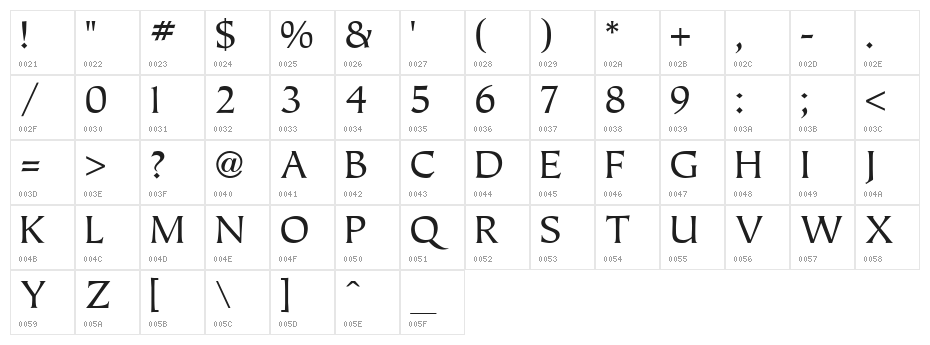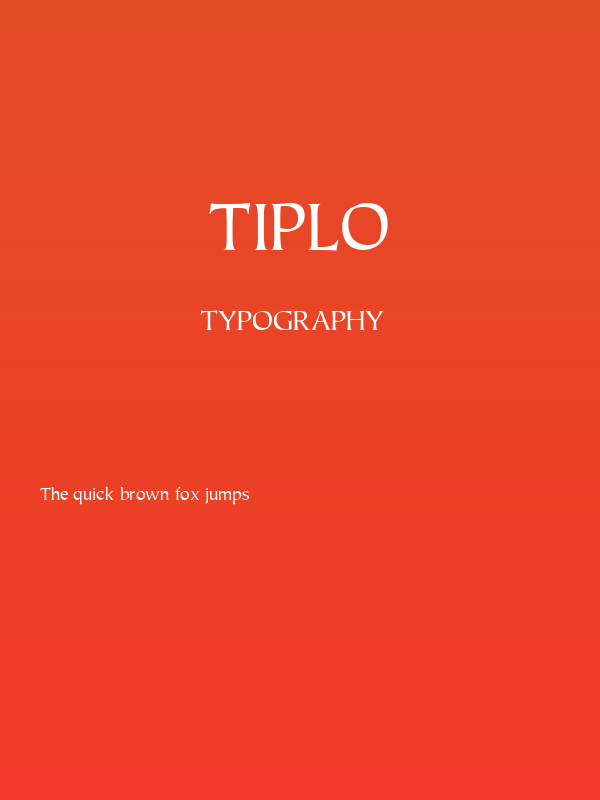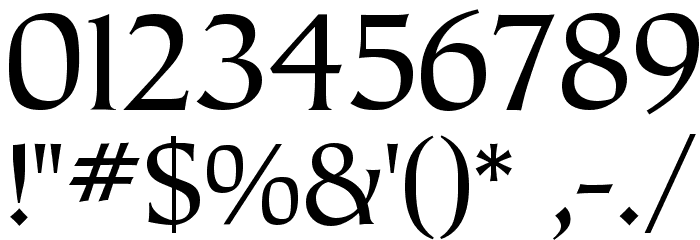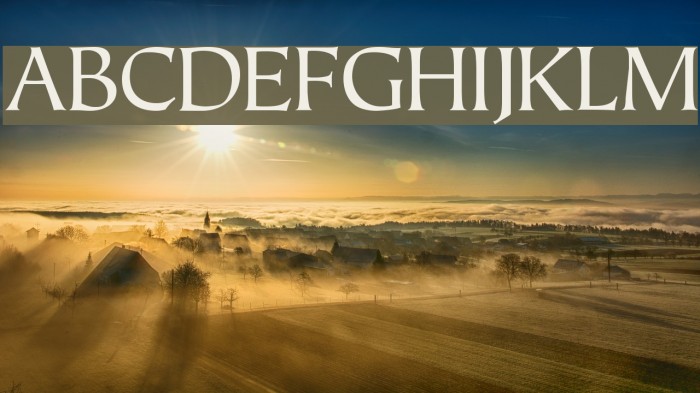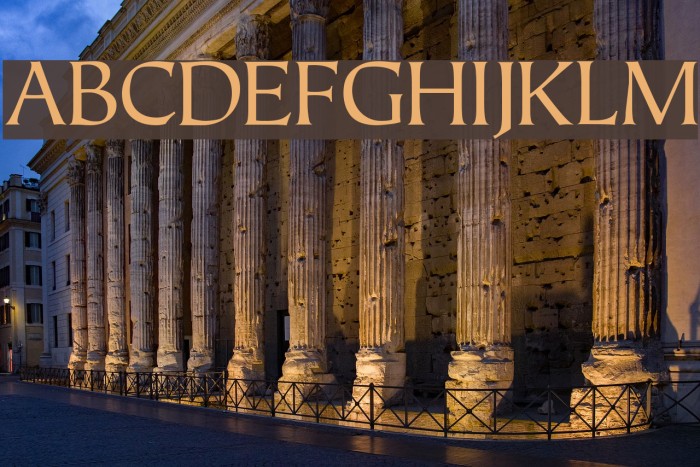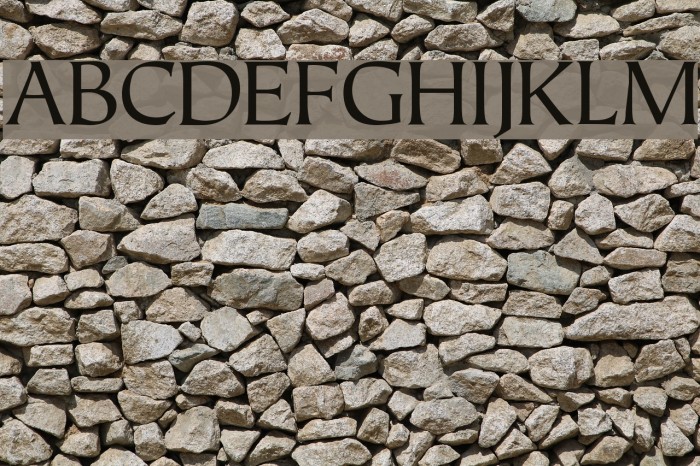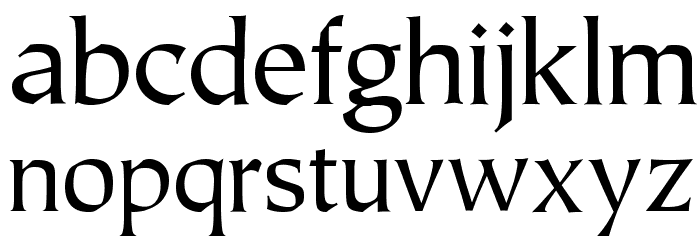
Tiplo Font
Tiplo Description
This font features a classic serif style with elegant, slightly curved serifs that add a touch of sophistication. The uppercase letters are bold and commanding, while the lowercase letters maintain a balanced and readable form. The numerals are clear and distinct, making them suitable for various applications. The special characters are well-designed, complementing the overall aesthetic of the font. This typeface exudes a timeless quality, making it versatile for both traditional and modern uses.
| Overall Style | Classic |
| Use Case | Headlines, Body text, Logos |
| Proposed Projects | Ideal for book covers, editorial design, formal invitations, and branding projects that require a touch of elegance. |